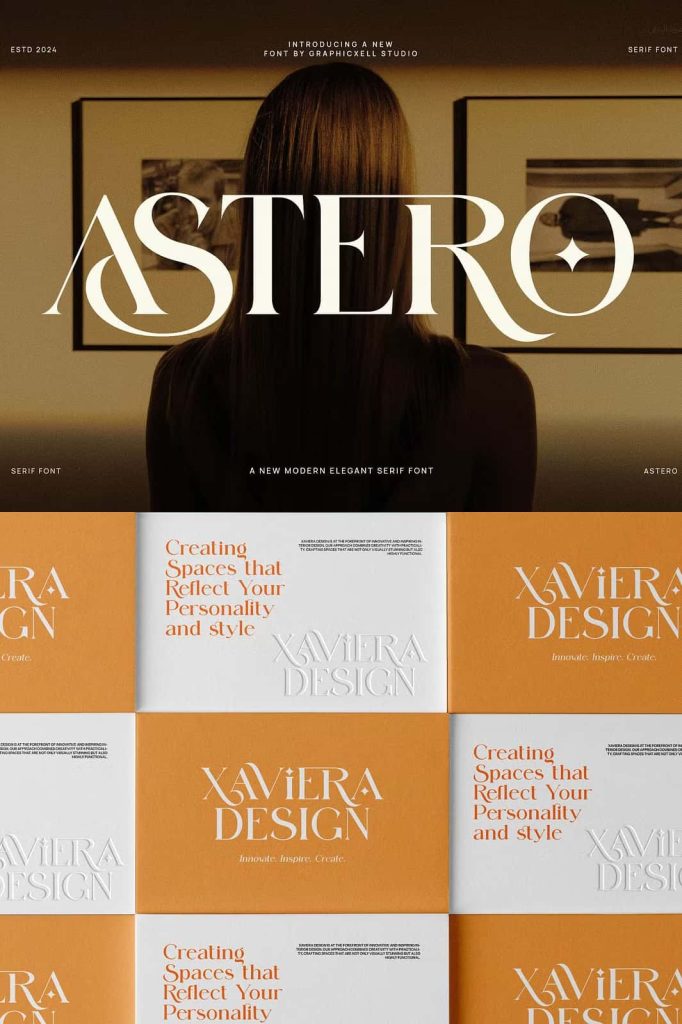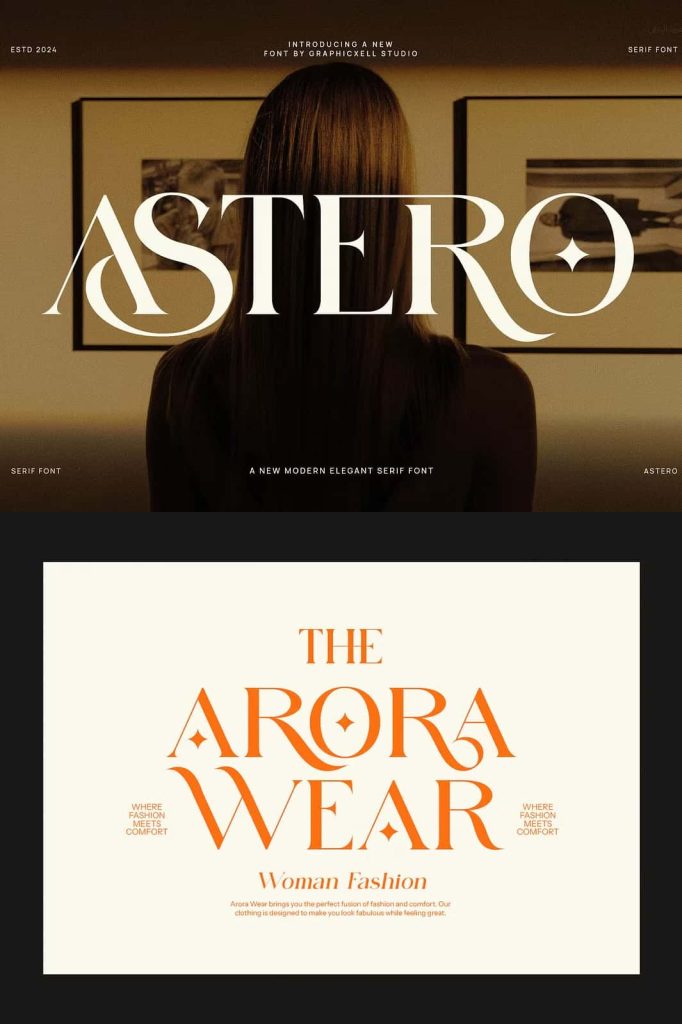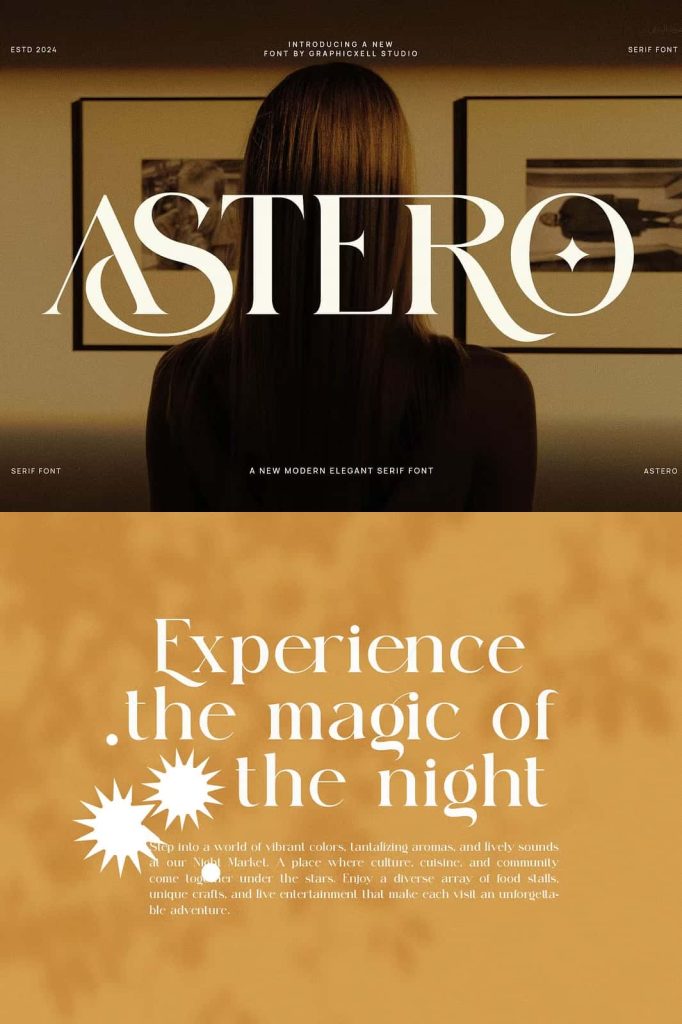
Astero Elegant Serif Font
Astero Elegant Serif Font is a distinctive typeface that combines elegance, originality, and a bold contemporary attitude. Designed for creatives who want to move beyond conventional typography, Astero introduces an eccentric visual character through sharp edges, unexpected details, and unconventional ligatures. Its unique construction gives every word a memorable presence, allowing designers to create sophisticated compositions that immediately attract attention.
Astero does not follow the predictable characteristics of traditional serif fonts. Instead, it introduces an anti-mainstream personality that gives the typeface a strong identity. Each sharp edge becomes part of its signature appearance, while the carefully balanced contrast between thick and thin strokes creates a refined rhythm throughout every word. This combination produces typography that feels luxurious, artistic, modern, and confidently unconventional.
A Unique and Elegant Serif Typeface
Astero Elegant Serif Font brings together two qualities that often appear difficult to balance: uniqueness and elegance. Its unusual forms create an expressive visual identity, while its sophisticated serif foundation keeps the overall appearance polished and refined.
The result is a typeface that can communicate luxury without becoming predictable. Designers can use Astero when a project requires something more distinctive than a conventional elegant serif. Its unusual details give logos, headlines, product names, and promotional messages a recognizable visual signature.
Sharp Edges as a Signature Detail
One of Astero’s most defining characteristics is its sharp-edged letter construction. These pointed details create a confident and slightly experimental personality. Instead of relying on soft or traditional serif endings, Astero uses sharper forms to create visual tension and individuality.
The sharp edges can make typography feel architectural and contemporary. They give each character a clear silhouette and help large words become strong graphic elements. This makes Astero especially effective for display typography, where the shape of each letter can contribute directly to the overall design.
Strong Letterforms for Visual Impact
Astero works particularly well when designers allow its letterforms to become a major part of the composition. Use large headlines, short brand names, editorial titles, or product names to showcase the distinctive shapes.
At larger sizes, the contrast between the sharp edges and elegant curves becomes even more noticeable. This allows the typeface to create a sophisticated focal point without requiring excessive decorative elements around it.
Anti-Mainstream Ligatures
Astero stands out through its unconventional ligatures. These distinctive character combinations provide an additional layer of personality and allow designers to create typography that feels less ordinary. Instead of relying only on standard letter combinations, the ligatures introduce unexpected visual relationships between characters.
Use these details to customize logos, headlines, fashion names, editorial titles, packaging, and other prominent text. Ligatures can transform an already distinctive typeface into something even more personalized and memorable.
Create More Expressive Typography
Typography becomes more engaging when designers experiment with character combinations rather than accepting every word in its default form. Astero’s unconventional ligatures encourage this creative approach.
Use them selectively to highlight important words or incorporate them throughout a headline for a stronger visual statement. This flexibility makes the font especially useful for designers who want their typography to feel custom and artistic.
Elegant Contrast Between Thick and Thin Strokes
The contrast between thick and thin forms gives Astero its sophisticated typographic rhythm. Strong strokes provide visual weight, while thinner sections introduce refinement and elegance. This balance creates a luxurious appearance that works particularly well in fashion, beauty, editorial, and premium branding.
The stroke contrast also improves the visual complexity of the letterforms. At larger sizes, the relationship between thick and thin areas becomes an important part of the design, giving headlines a polished and editorial quality.
Modern and Classy Personality
Astero combines contemporary design principles with classic serif elegance. Its sharp construction and unusual ligatures make it feel modern, while its refined proportions and stroke contrast maintain a sophisticated character.
This combination allows the typeface to adapt to both traditional luxury aesthetics and more experimental contemporary designs. You can pair Astero with minimalist layouts for a clean modern result or combine it with richer textures, photography, and decorative elements for a more luxurious presentation.
If you are searching for an elegant serif font with sharp details, expressive ligatures, and a distinctly unconventional character, Astero Elegant Serif Font offers a sophisticated choice for your next creative project.